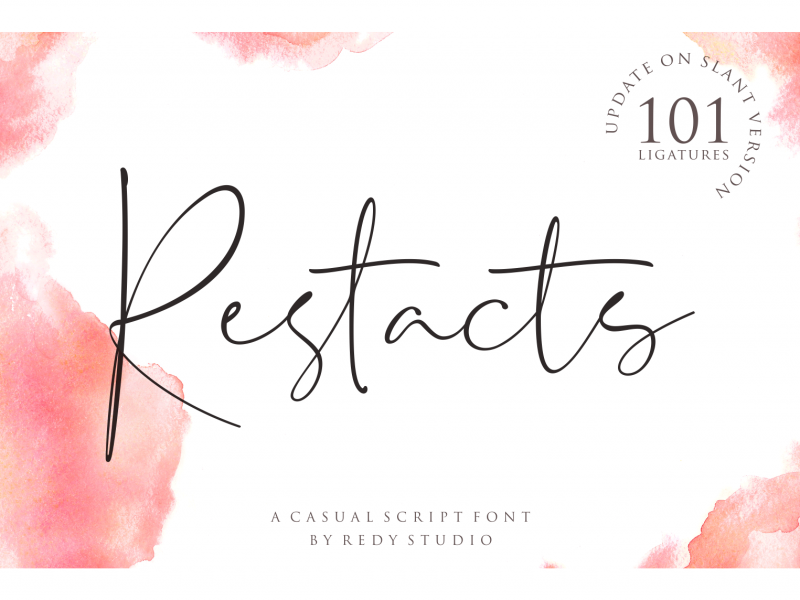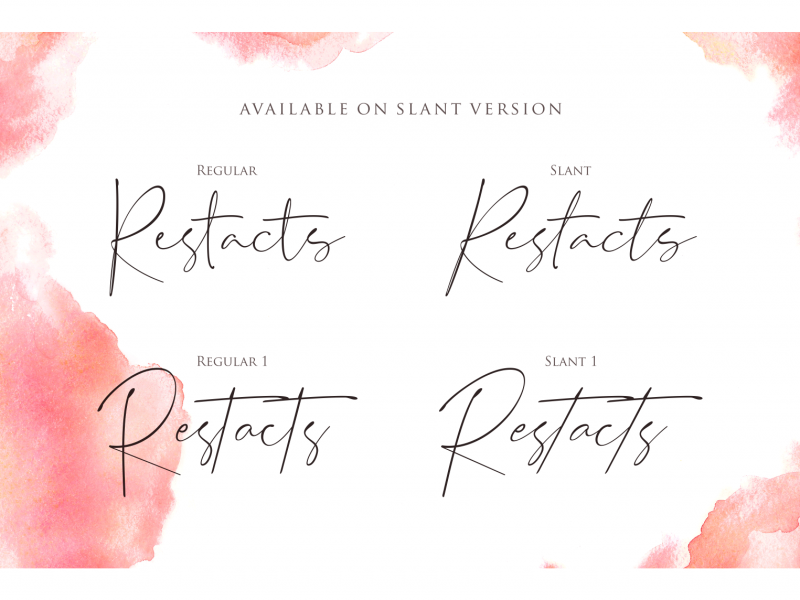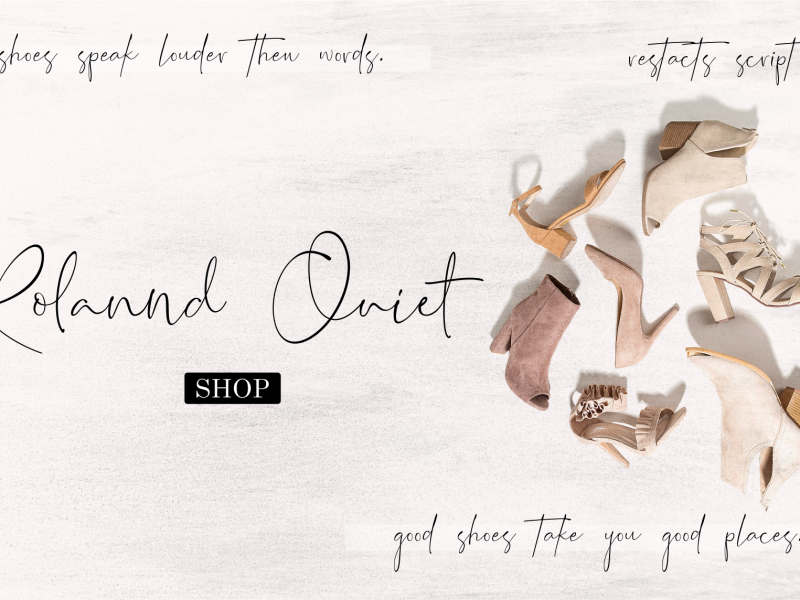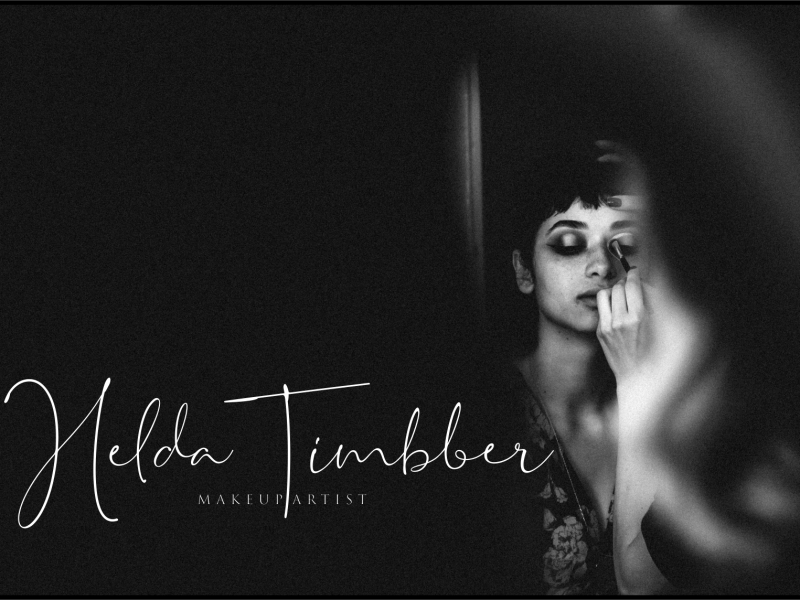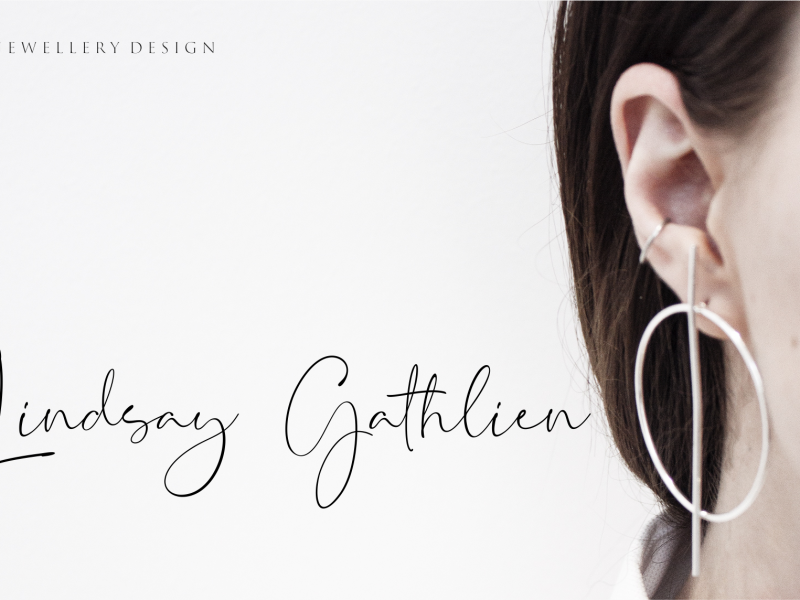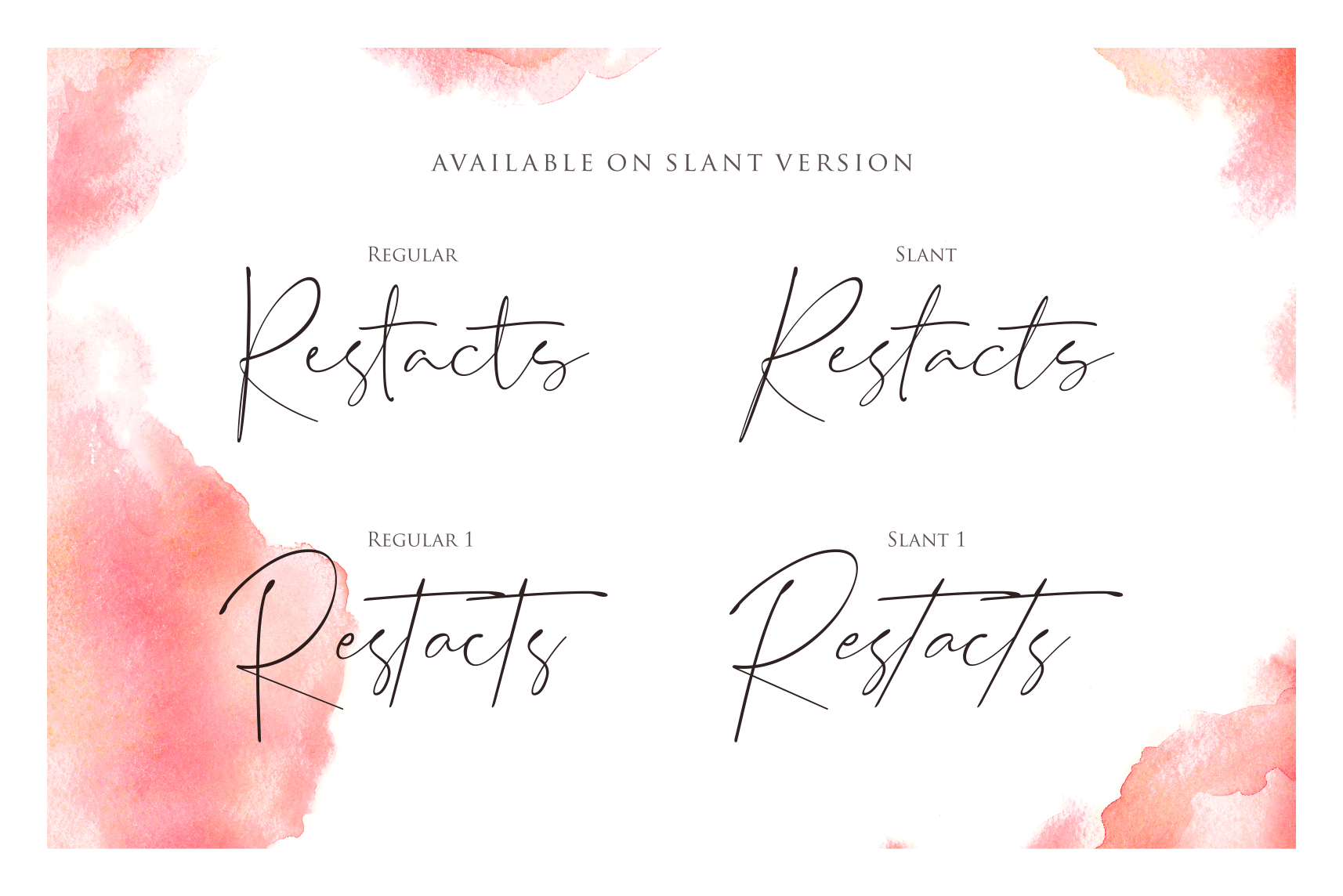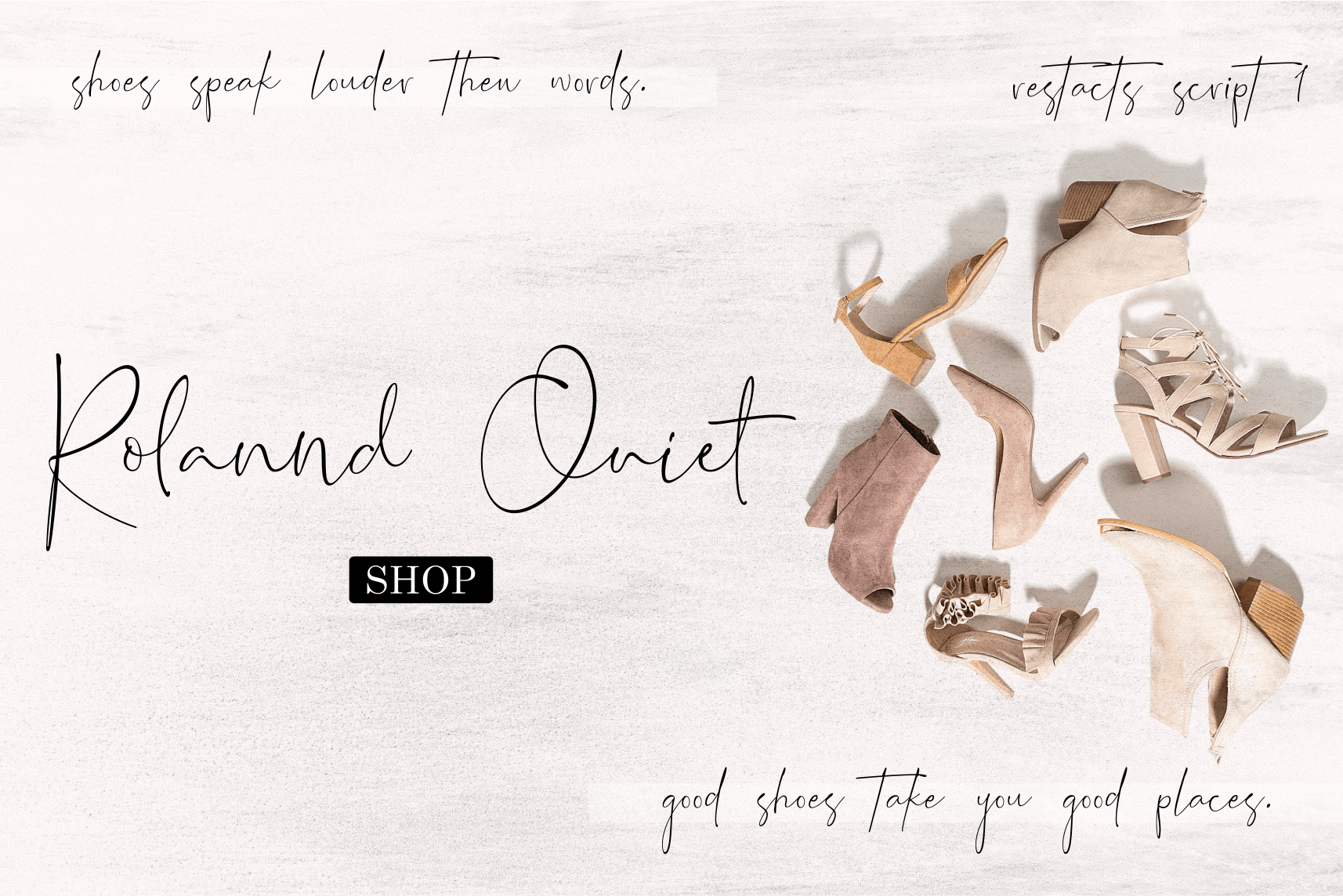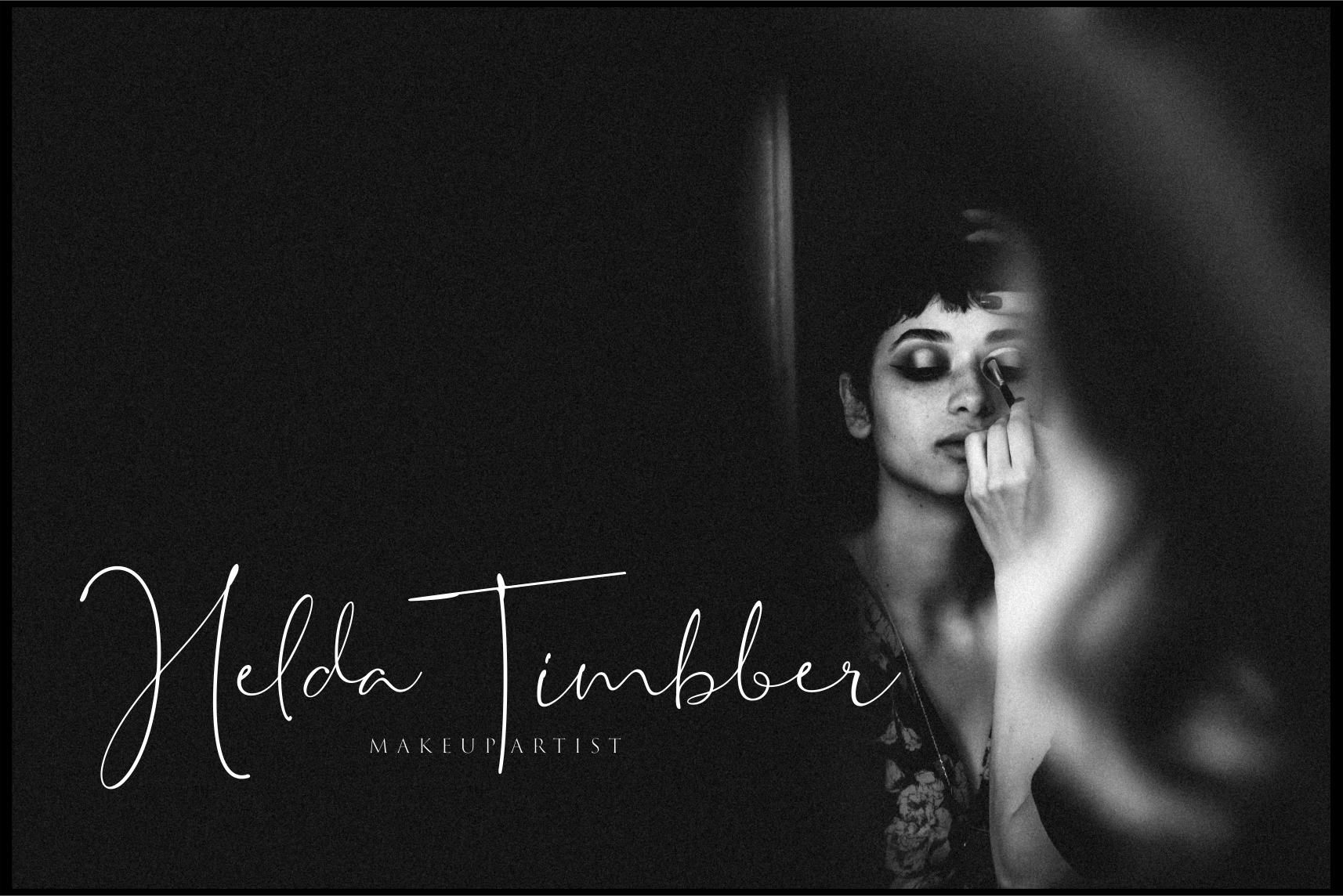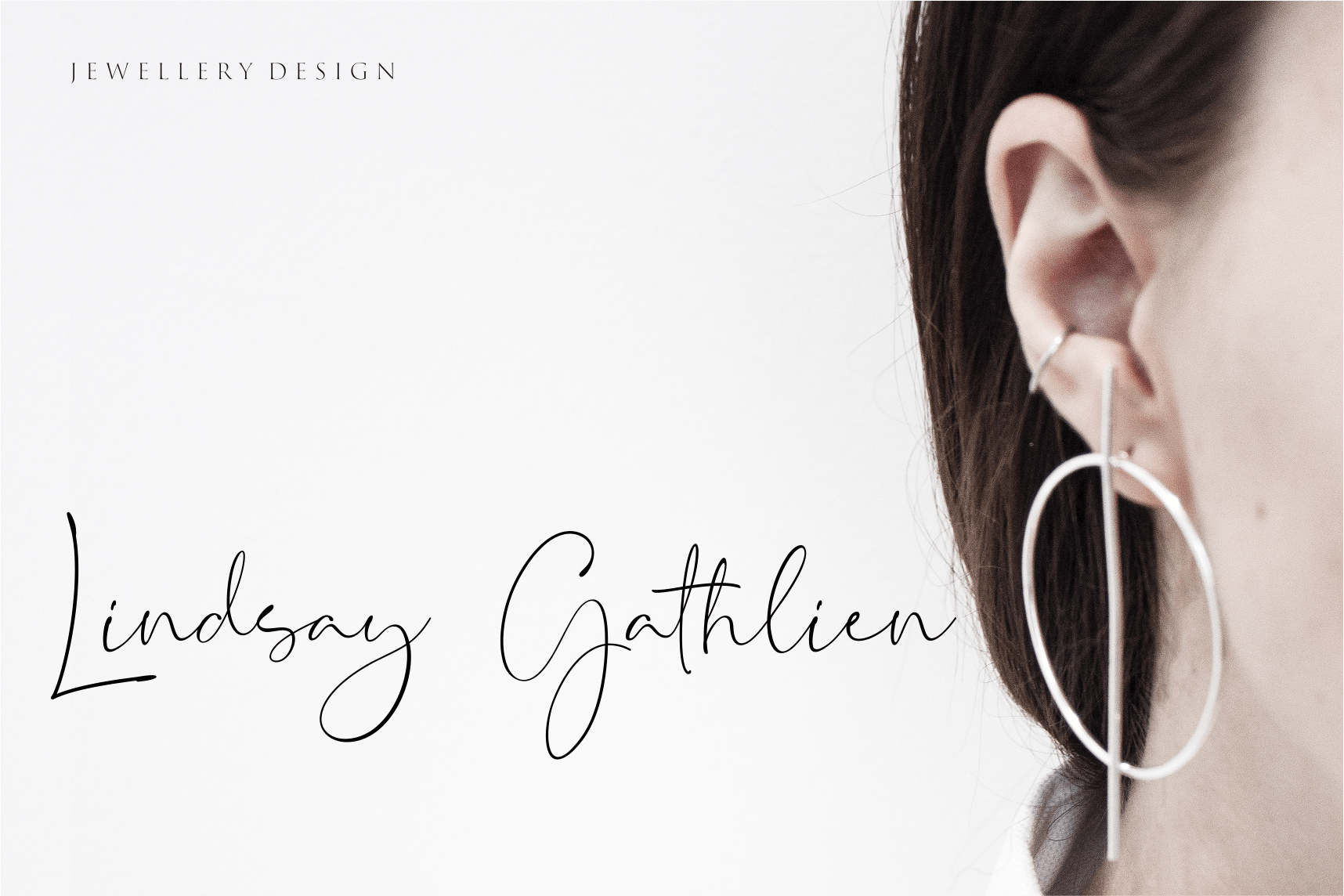
Restacts Handwritten Font
Introduce Restacts Script, here we provide 2 variants, the first one is Restacts Script which is more casual and feminine, the second variant is more elegant and bolder. Both of them look smooth and you can see our preview for more details. Restacts Script provides beautiful letter essence for any design project including Branding, social media, logo, wedding invitation, photography overlays, etc.
To make the letters look as natural as possible, here with we attach 101 Ligature on our Ligature of Restacts Script preview :af aff al all ar at att az bb bf bl br bbr bt cc cr cf dd da dda df dl dr ddr dt ee ef eff el ell er et ett ez ff gf hh hf ht if iff il ill ir it itt iz jf kk kf ll lf lt mm ma mma mf nn nf oo of off ol ool oll ot oot ott oz pp pf qf rr rf ss sb ssb sf ssf sh ssh sk ssk sl ssl sr ssr st sst tt uf ul ull ur ut utt uz xx xf yf zz.